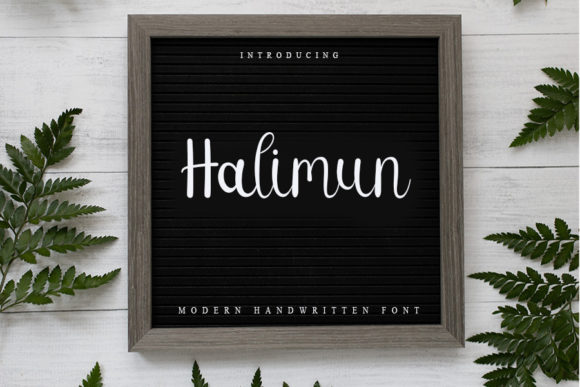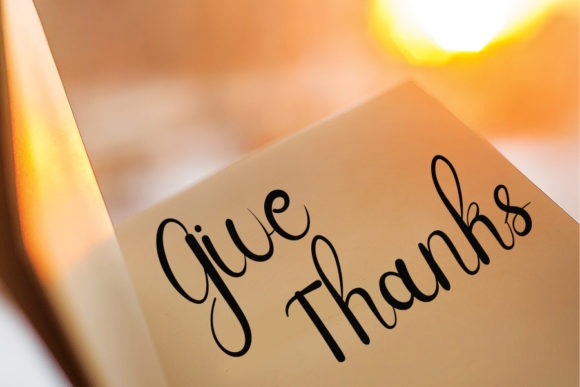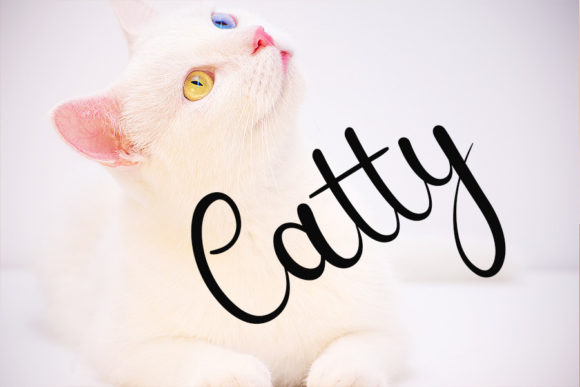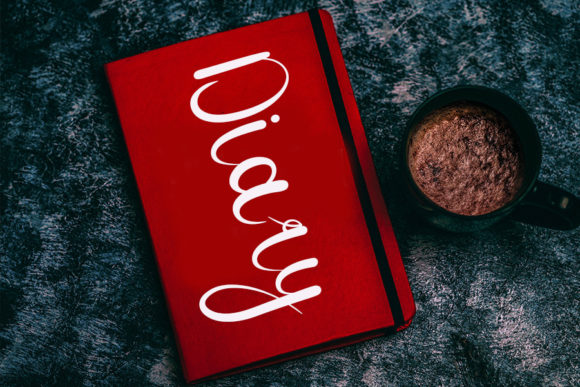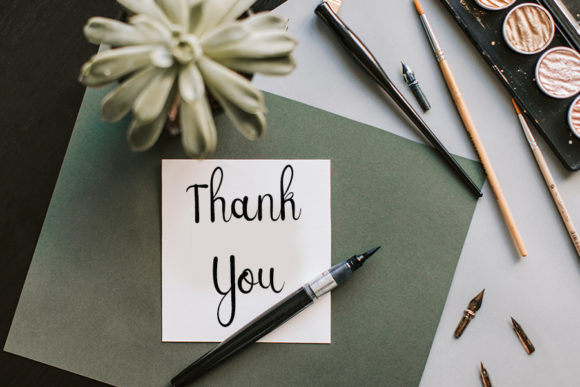
Hallimun Font
About Hallimun Font
Hallimun is a lovely and timeless handwritten font. It is the best choice for creating eye catching logos, branding and quotes. Every letter has a unique and beautiful touch, which will make your design come alive!